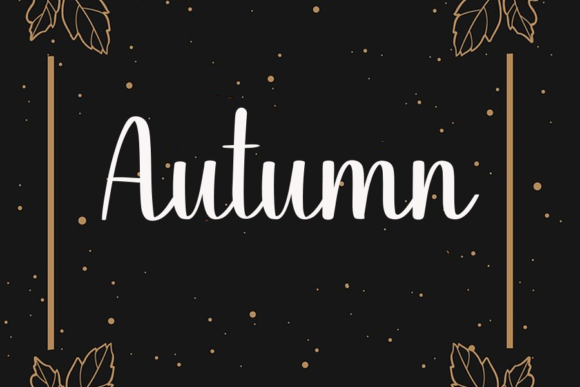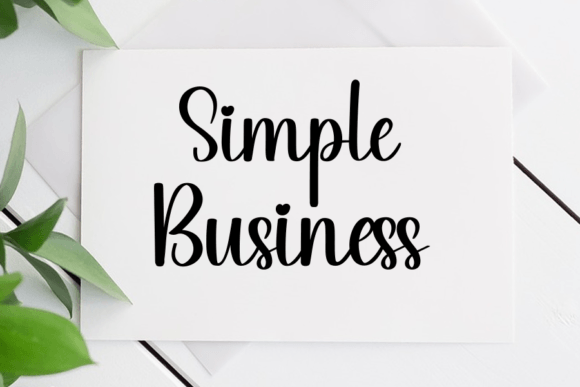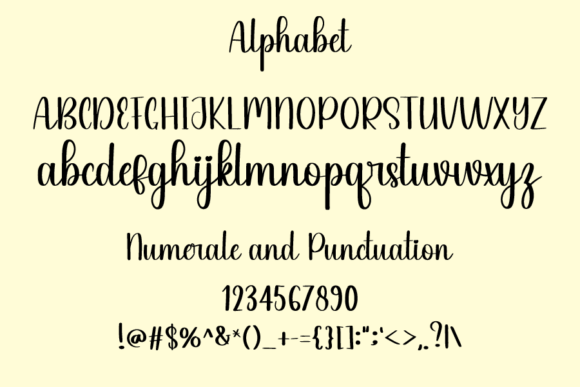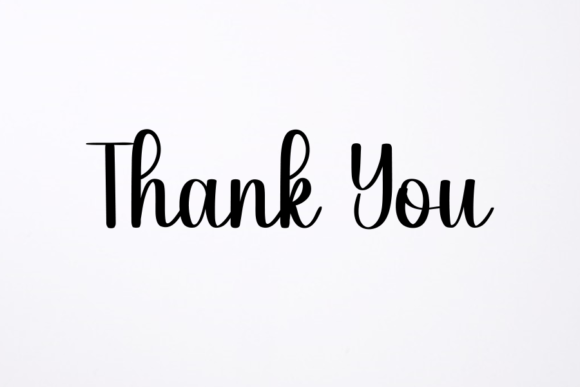
The Magic of Disney Font: Elevating Your Designs with Elegance
I’ll never forget the time I was working on a project for a luxury brand, and my client specifically asked for a font that would evoke a sense of timeless elegance. I scoured the internet, tried out countless fonts, but nothing seemed quite right. That was until I stumbled upon the Disney font. With its flawless blend of classic calligraphy and modern flair, it instantly elevated my design and won over my client’s heart. In this article, I’ll share with you why I’m obsessed with this font, its features, and how you can make the most of it in your designs.
A Personal Review: What I Love About Disney Font
So, what makes the Disney font so special? Here are a few things that I absolutely love:
- ✨ Impeccable form: The font’s classic calligraphy inspiration gives it an air of sophistication and elegance.
- ✅ Contemporary atmosphere: Despite its timeless feel, the Disney font still feels modern and fresh.
- 💫 Versatility: Whether you’re working on a luxury brand project or a whimsical design, this font adapts beautifully.
While the Disney font is undoubtedly stunning, there are a few minor quirks to be aware of:
- 🤔 Limited use in body text: Due to its elegant and cursive nature, the Disney font might not be the best choice for lengthy body text.
- ⚠️ Requires careful kerning: As with any script font, you’ll need to pay attention to kerning to ensure that your text looks polished.
The Disney font was inspired by timeless classic calligraphy, with a dash of modern flair. Imagine a designer, sipping coffee in a quaint café, surrounded by vintage typography books and manuscripts. This font is the result of blending traditional techniques with contemporary design sensibilities.
| Font Name | Disney Font |
| Author | cans studio |
| Is the Disney font suitable for body text? | While it’s elegant, the Disney font might not be the best choice for lengthy body text due to its cursive nature. |
| Does the Disney font support OpenType features? | Yes, the Disney font supports OpenType features like ligatures and stylistic alternates, allowing for more creative flexibility. |
In conclusion, the Disney font is a stunning addition to any designer’s toolkit. Its elegance, versatility, and impeccable form make it perfect for a wide range of projects. Whether you’re a seasoned designer or a creative hobbyist, this font is sure to elevate your designs and leave a lasting impression.